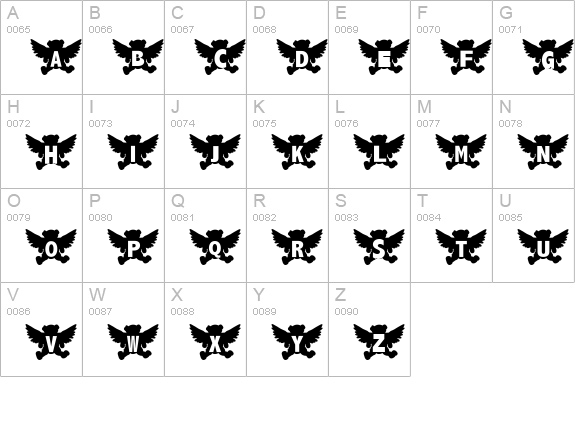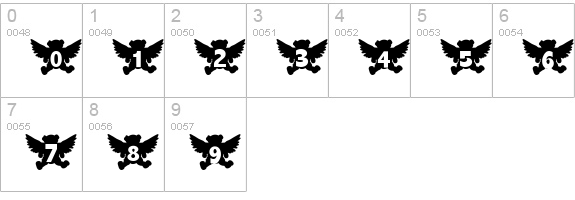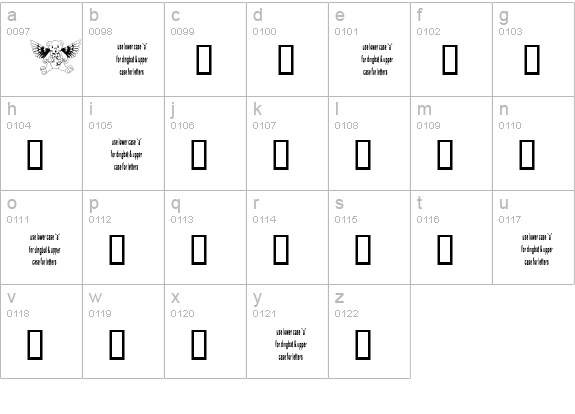
Angel Bear Font Details
Angel Bear font is a whimsical and charming typeface that exudes a sense of playfulness and innocence. With its rounded edges and friendly curves, this font is perfect for adding a touch of sweetness to any design project. Whether you're creating greeting cards, invitations, or children's books, Angel Bear font is sure to bring a smile to your audience's faces. What's even better is that Angel Bear font is completely free to download at FontsMarket.com. This means you can add this adorable font to your collection without any cost, making it a valuable resource for all your creative endeavors. Don't miss out on the opportunity to bring a touch of magic to your designs with Angel Bear font - download it today and let your imagination soar!